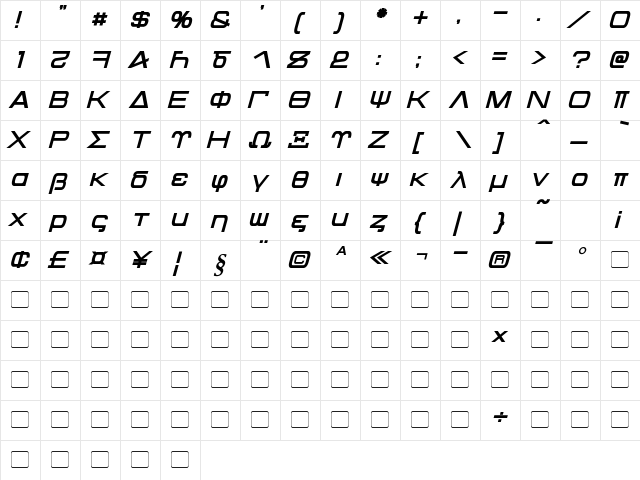
Kentaurus Bold Italic Font Preview
Design Context for Kentaurus Typeface
Kentaurus takes a measured approach to typography — its balanced proportions and neutral character make it a reliable workhorse for both digital and print work. The dynamic lean of this cut emphasises speed and emphasis in any layout. Its bold stroke weight gives it real presence on the page.
Pro Tip: Try Kentaurus for annotation and caption copy alongside an upright companion — the contrast in angle creates a dynamic but ordered typographic system.